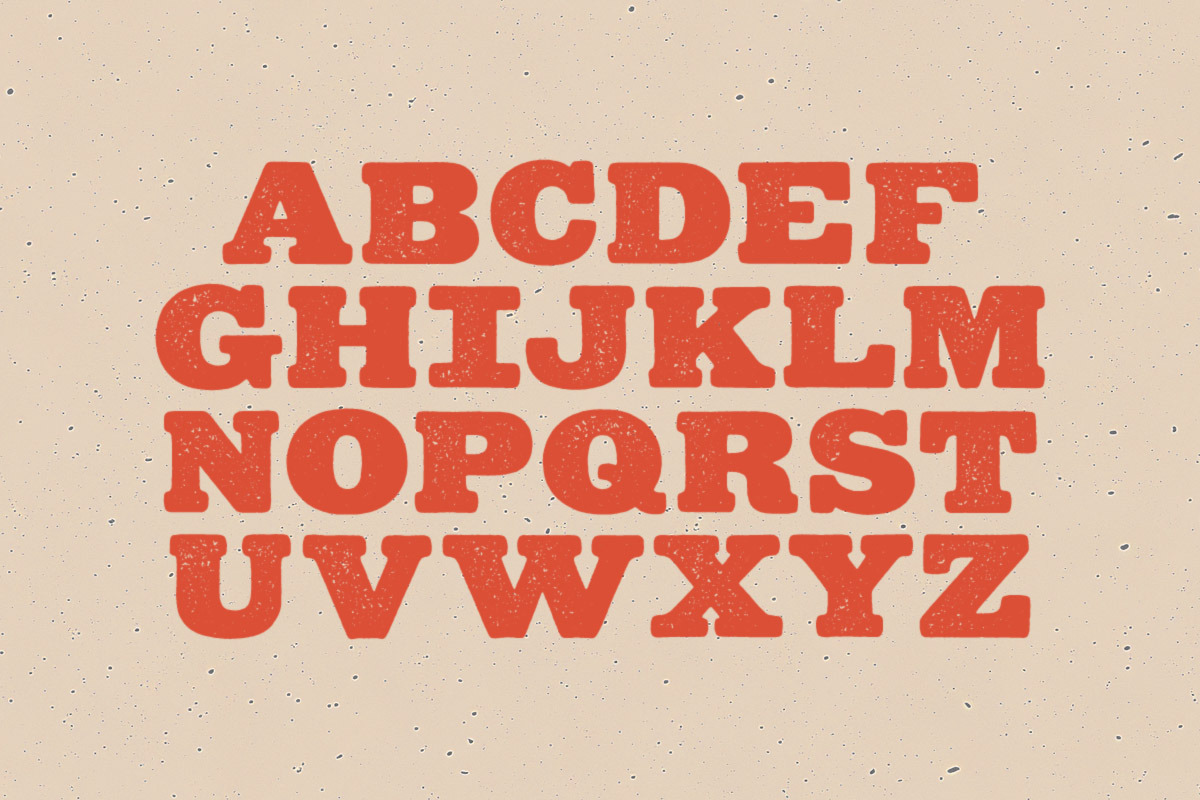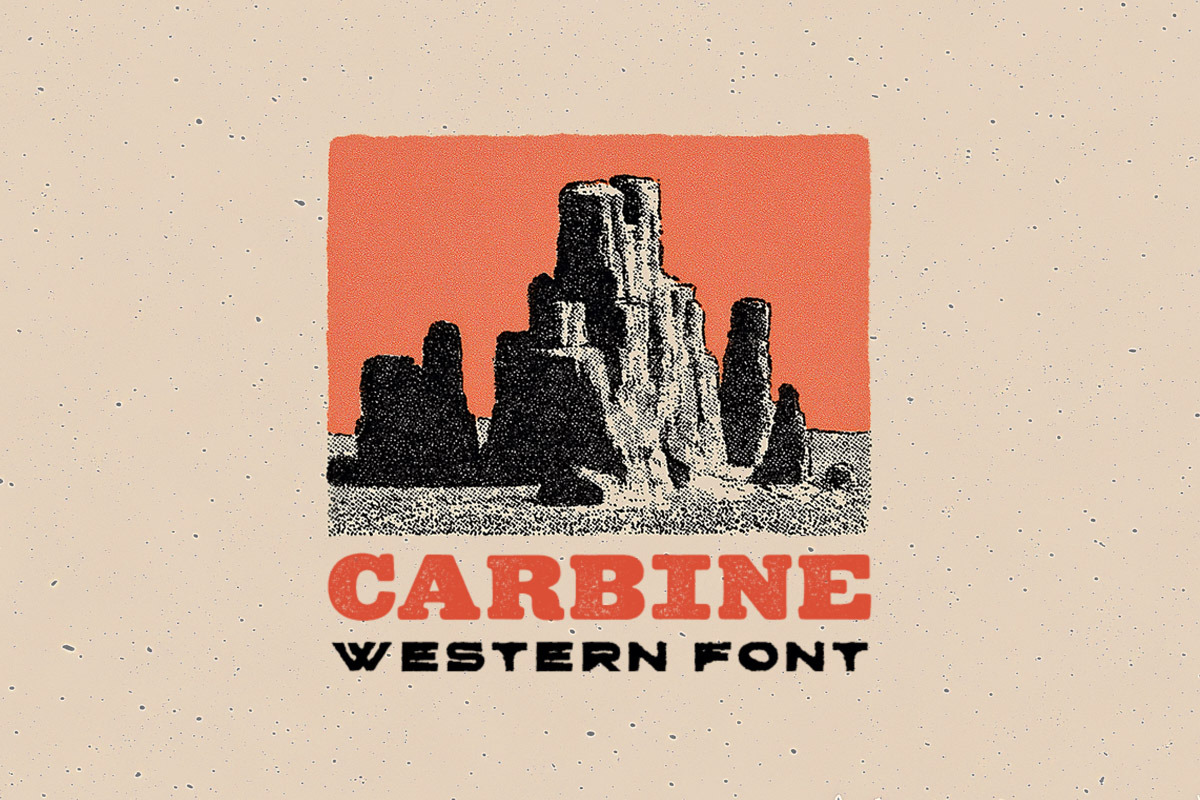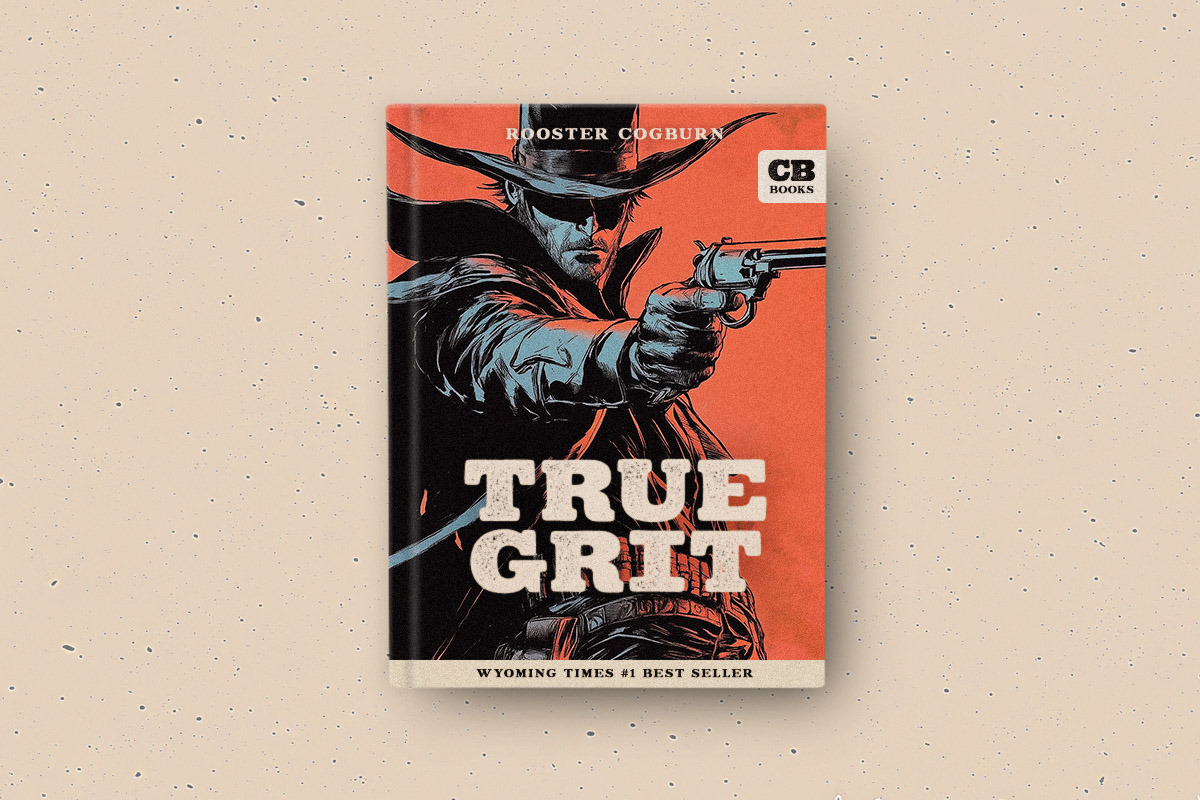
Carbine Typeface
Carbine is a bold Western display font with a rugged vintage feel and classic frontier attitude. Perfect for cowboy branding, retro posters, saloon-style logos, packaging, signage, and Americana designs that need a strong old-west punch.